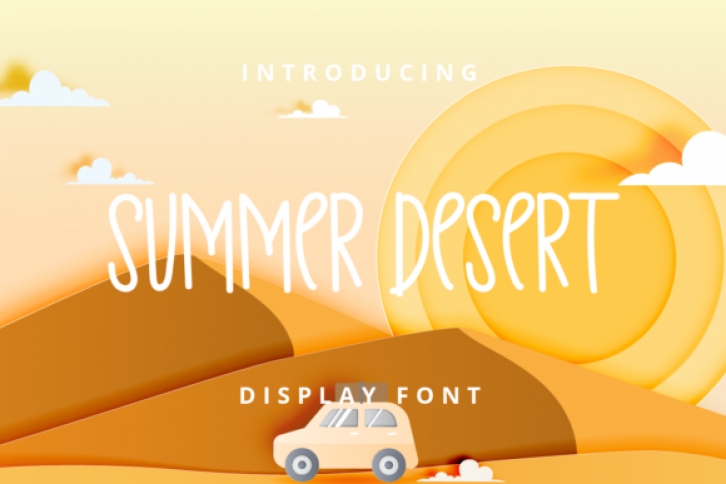
Summer Desert is an adorable, thin and cute script font. It will add an incredibly joyful touch to your designs. Fall in love with its playful style and use it to create beautiful art!